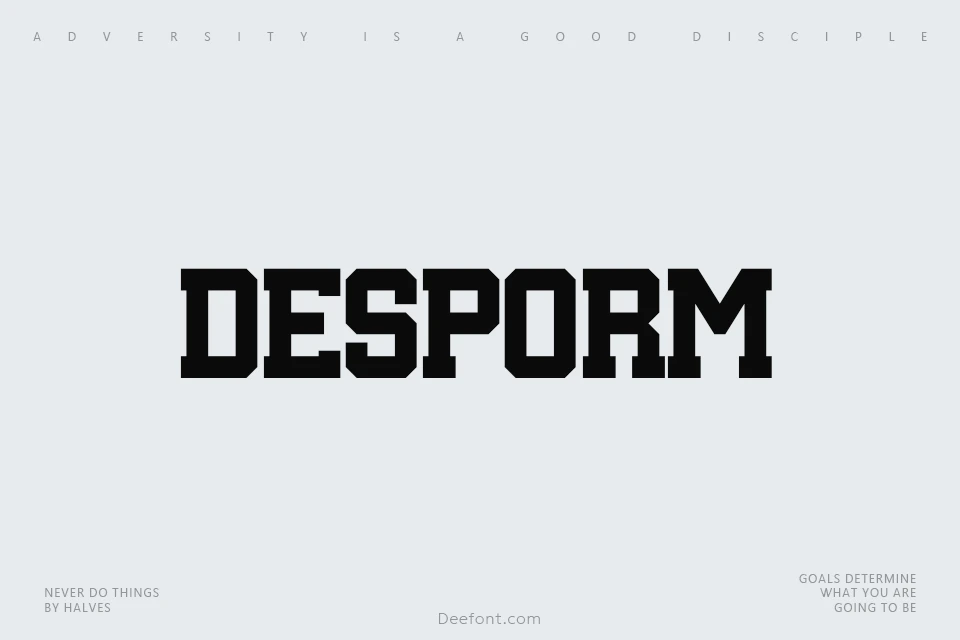
Desporm Font
Desporm Font is a bold and dynamic sports display typeface with a serif style that exudes strength and energy. Its robust, angular letterforms are designed to make a powerful impact, making it an excellent choice for sports branding, athletic team logos, fitness apparel, and high-energy marketing materials.
The font's clean yet commanding design ensures excellent legibility while maintaining a striking visual presence. Its sporty aesthetic captures the essence of competition and determination, making it ideal for projects that aim to inspire action and confidence.
Desporm’s bold character and versatile design make it a perfect choice for any project requiring a strong, athletic vibe.